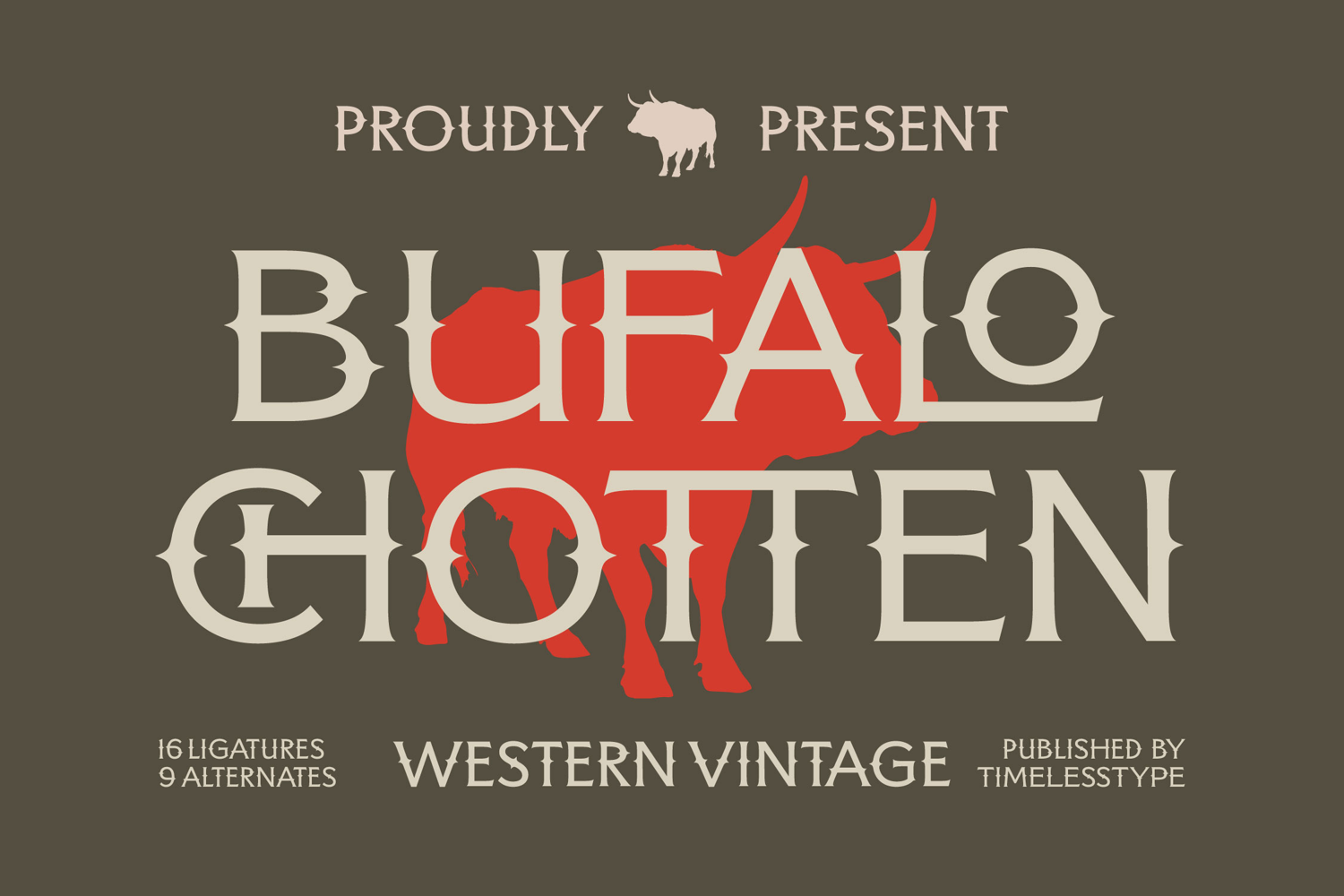
Bufalo Chotten - Western Vintage Font
Bufalo Chotten Italic
Bufalo Chotten
Bufalo Chotten - Western Vintage Font. This powerful display typeface is steeped in the rugged aesthetics of the American West, delivering authenticity and immediate character to any design project. Its thick, commanding strokes and intricate decorative spurs evoke antique signage and classic tattoo artistry, ensuring high-impact visibility for titles, headers, and primary branding elements that demand attention and evoke a sense of heritage.